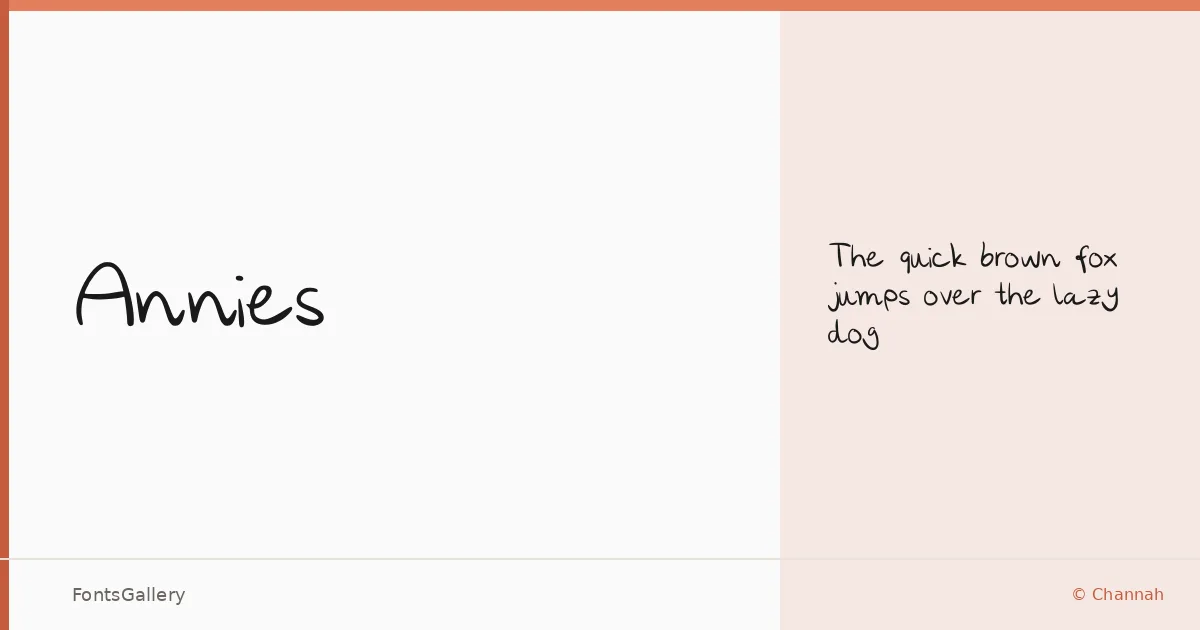
About Annies Font
There is an immediacy to this script — the kind of looseness that comes from a hand that moves with confidence rather than caution. Designed by Channah and built through Calligraphr.com, it captures the natural rhythm of personal handwriting without trying to polish away its character. The single Regular weight is delivered as an OTF file, keeping things straightforward.
The letterforms sit in that warm territory between playful and romantic, with a whimsical quality that feels genuinely hand-drawn rather than mechanically constructed. As a handwritten face with partial Latin coverage, it carries the kind of casual energy that brings life to smaller text moments — a headline, a pull quote, a signature line. The OTF format means consistent rendering wherever you place it.
It finds its footing quickly in greeting cards, invitation cards, and children's book titling, where that personal, expressive touch matters most. Branding work and social media graphics with a warm or intimate tone are equally natural fits. For contrast and balance, the clean geometry of Helvetica or Aileron works well alongside it, while Aranea, Aresink, and Bizantheum offer more decorative companionship depending on the mood of the project.